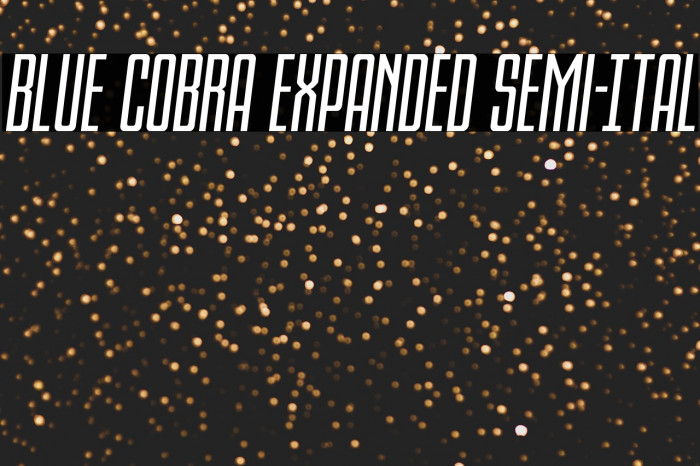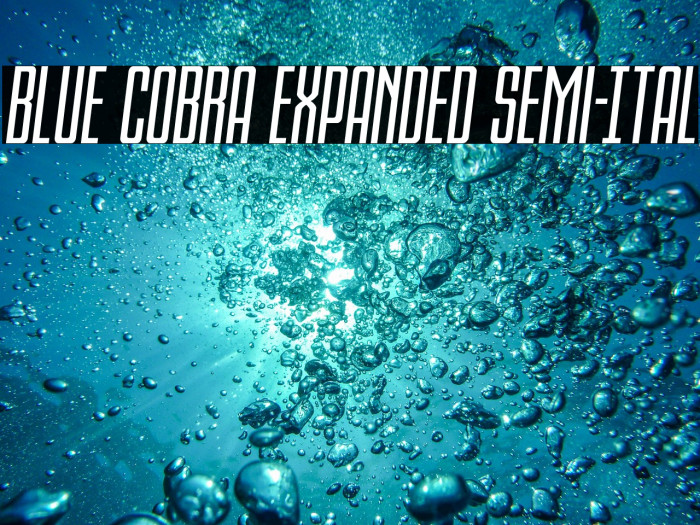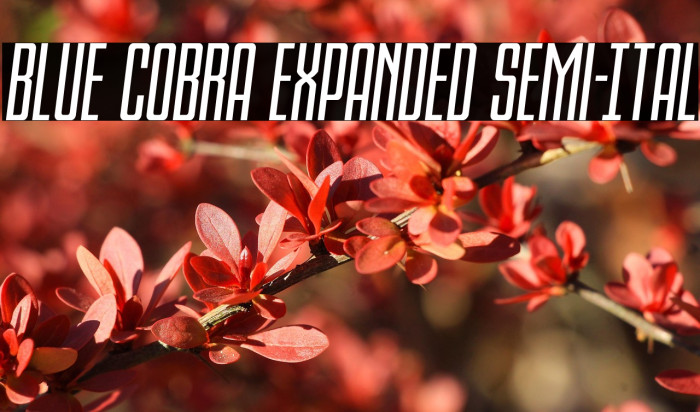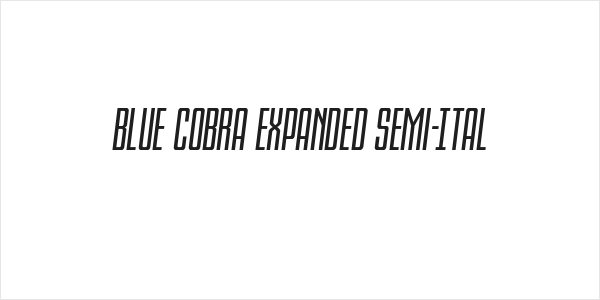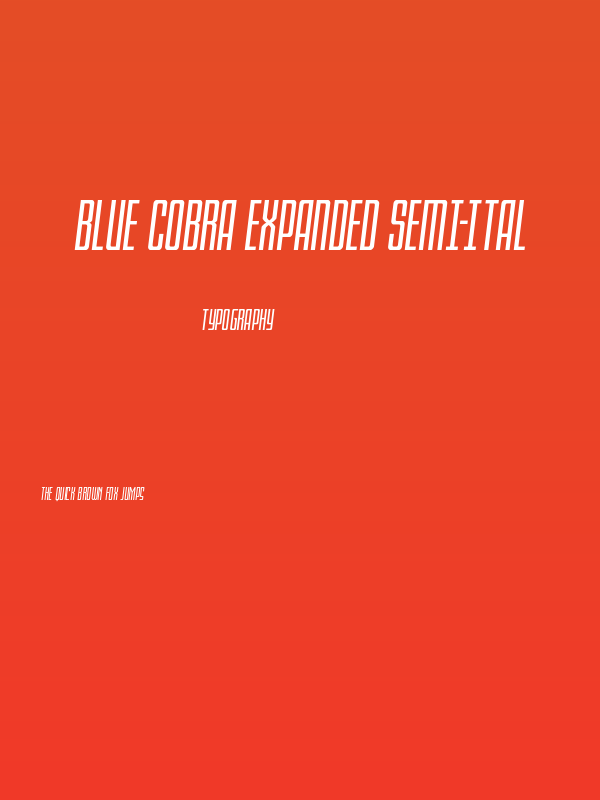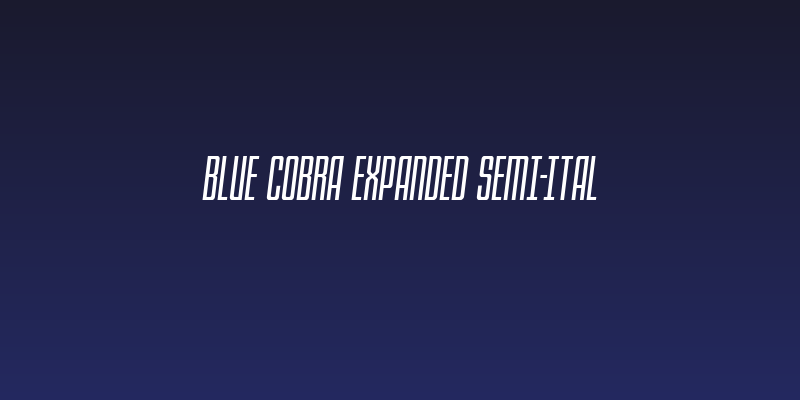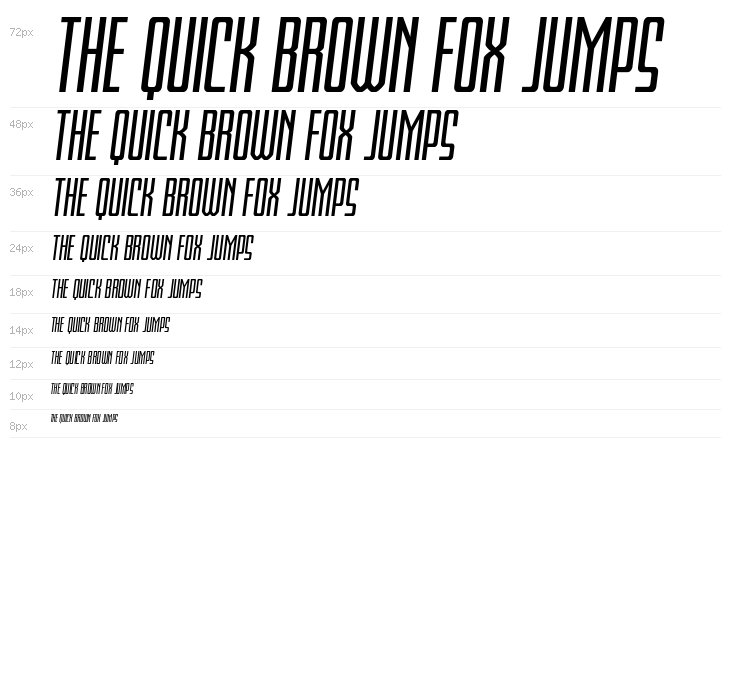
Blue Cobra Expanded Semi-Ital Font
Blue Cobra Expanded Semi-Ital Description
This font features a bold and dynamic design with an expanded width and semi-italic slant, giving it a sense of motion and energy. The characters are tall and narrow, with sharp angles and clean lines that create a modern and sleek appearance. The uppercase letters are particularly striking, with a strong presence that commands attention. The numerals and special characters maintain the same stylistic elements, ensuring consistency across all glyphs. This font's unique style makes it suitable for projects that require a contemporary and impactful look.
| Proposed Projects | Ideal for sports branding, dynamic posters, modern advertising, and eye-catching headlines. |